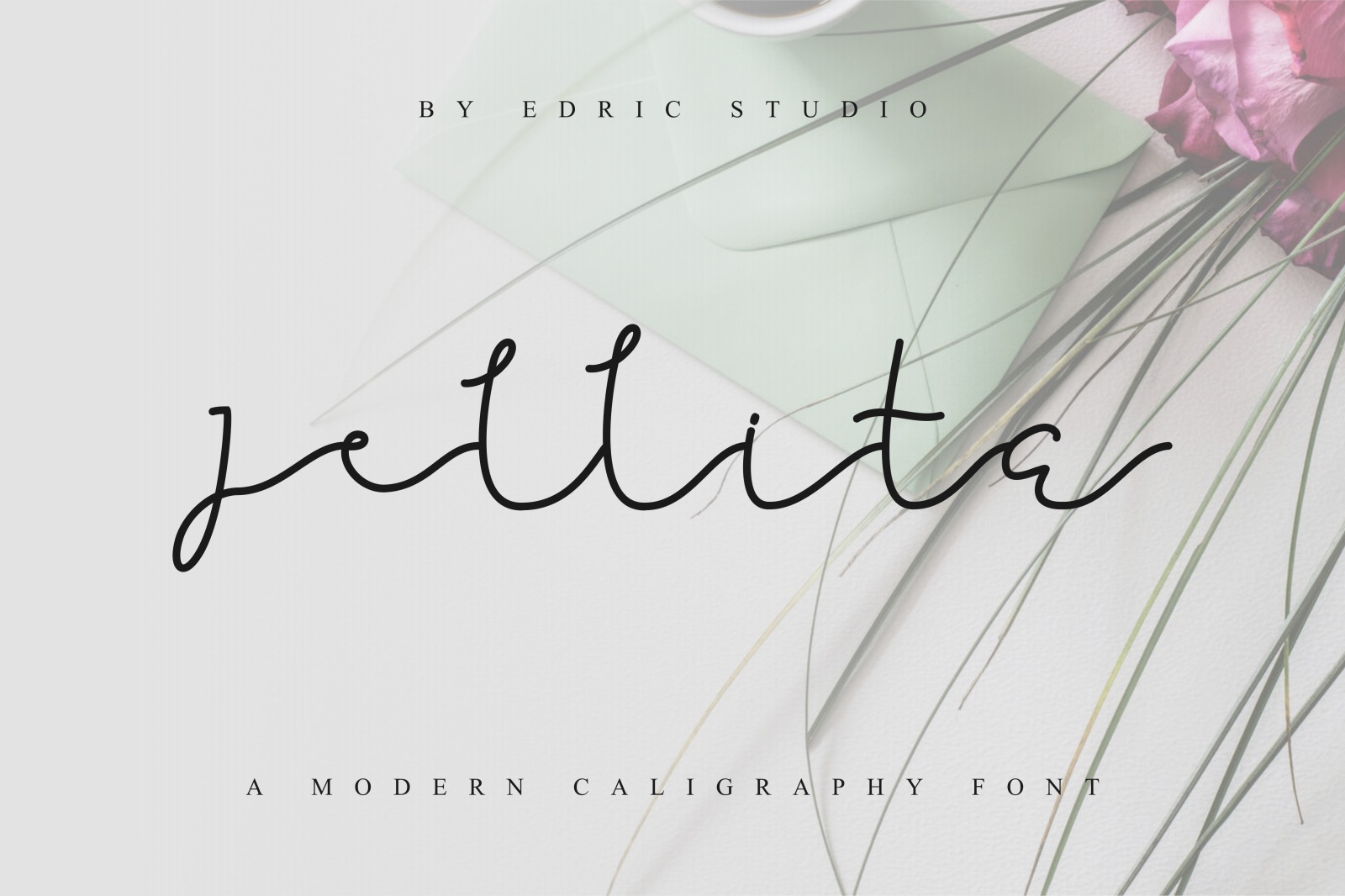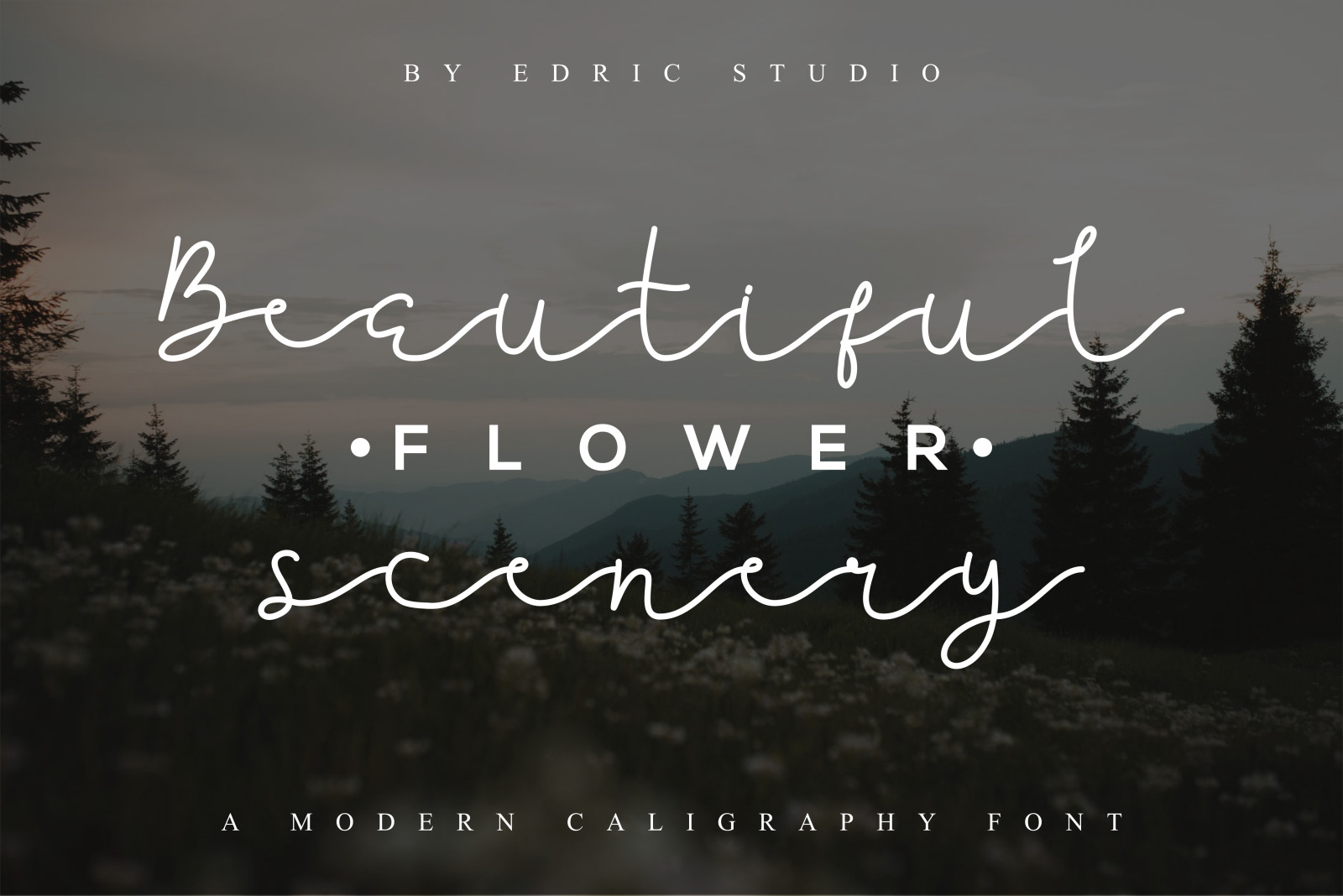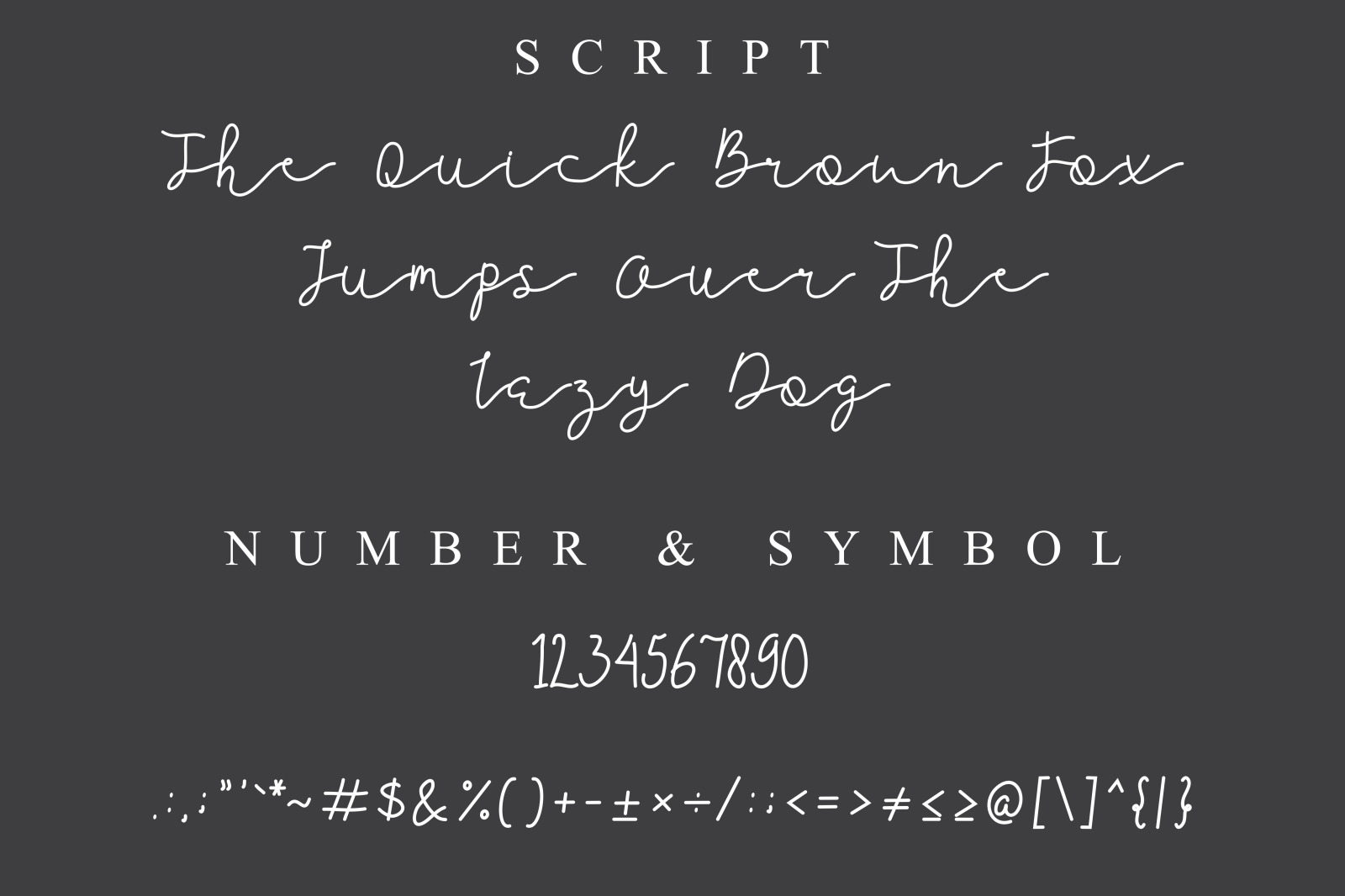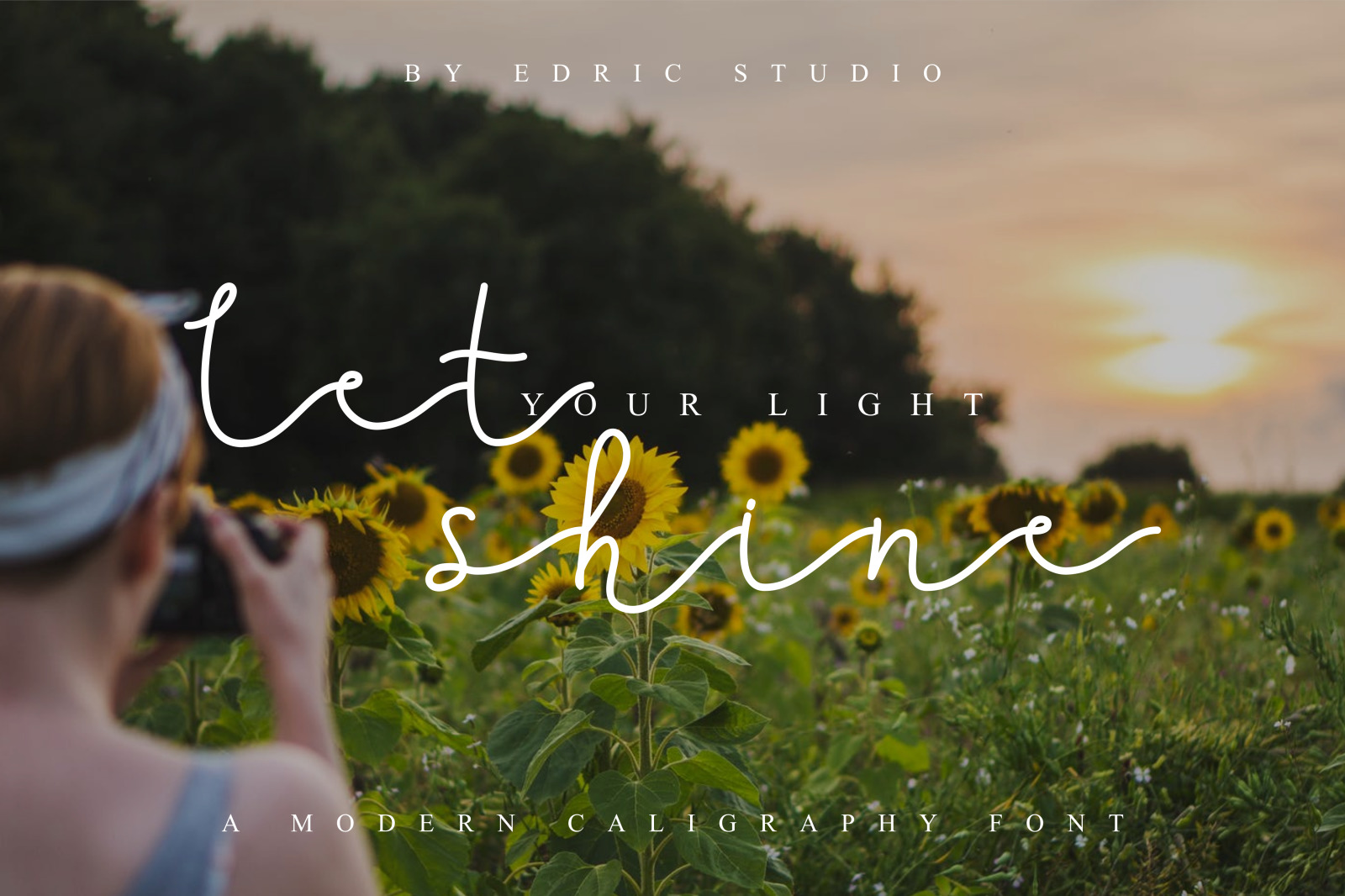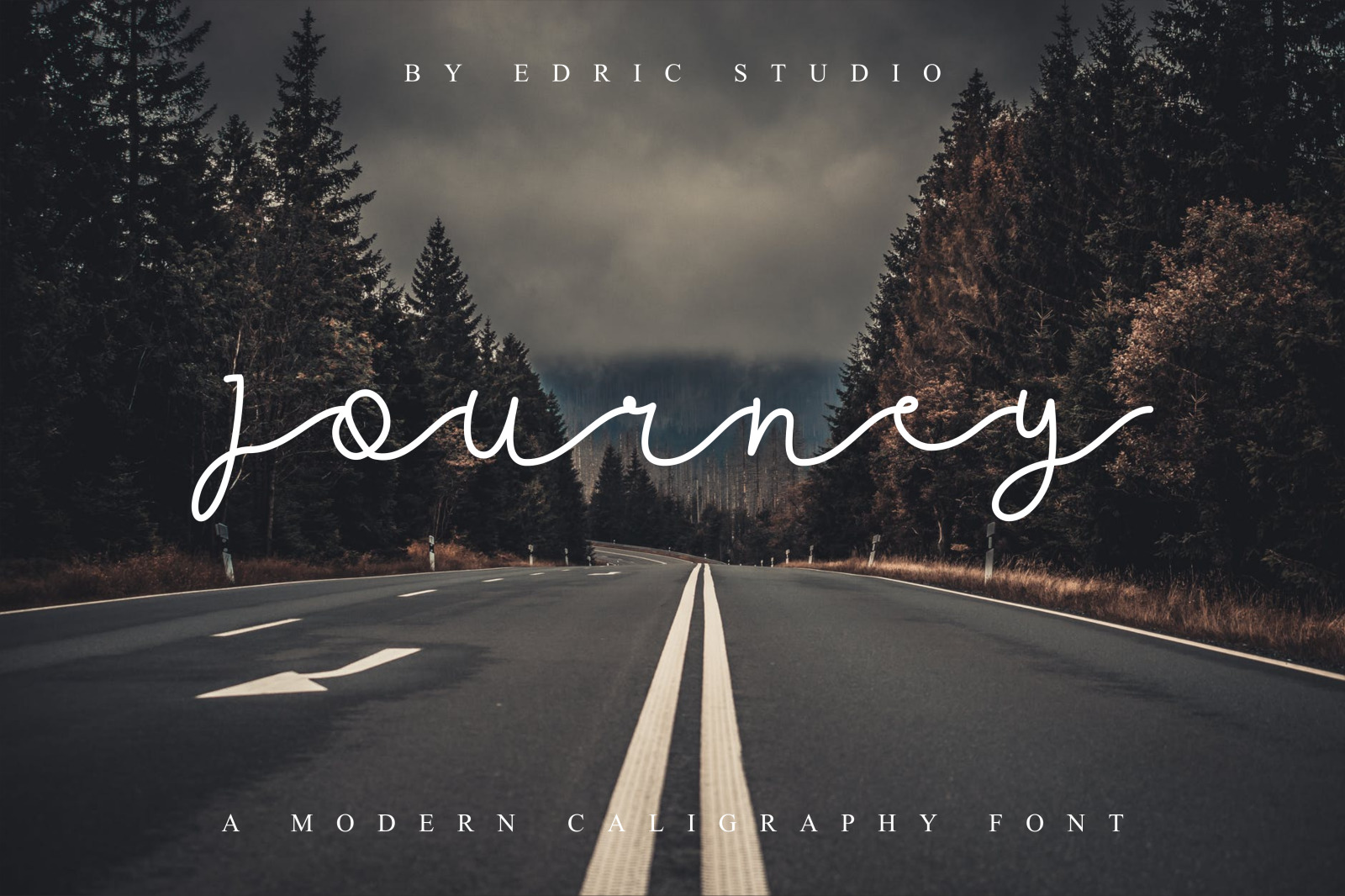
Jellita Calligraphy Font
Please meet our newest font : Jellita
This is a new beautiful handwriting script font with pen look one line handcrafted glyphs . On the package You will get :
It will be great for invitation, poster, photography, logo (need extended license), fashion, label etc
It also support multilangguage glyphs